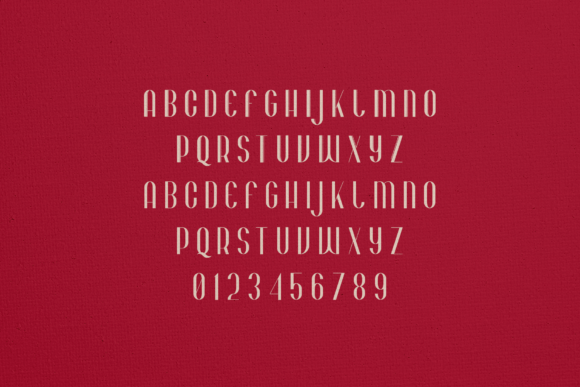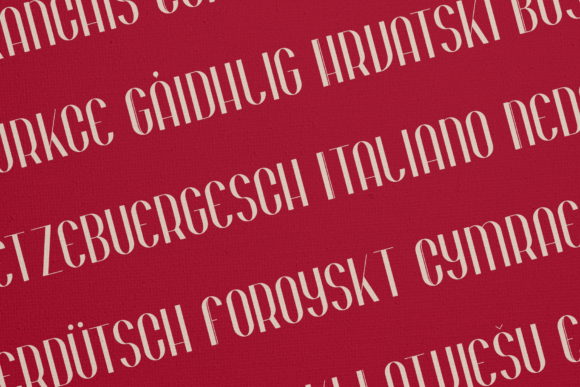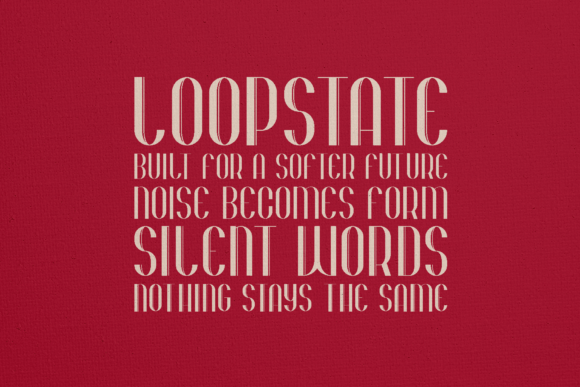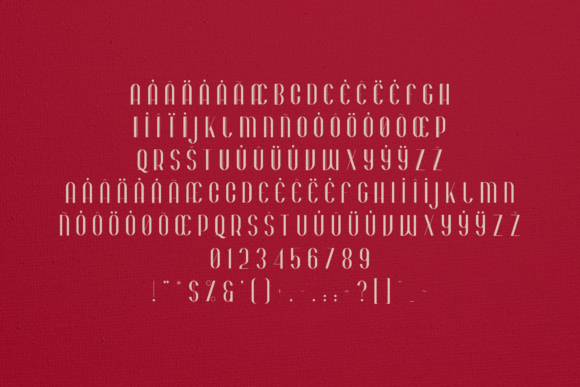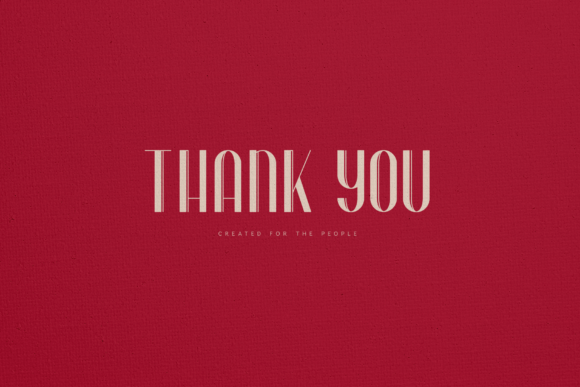
Unlocking the Secrets of Bohemian Luxury with the Bohem Font
As a designer, there’s nothing quite like the thrill of discovering a new typeface that speaks to your creative vision. For me, that moment came when I stumbled upon the Bohem Font – a stunning Art Deco-inspired display font that exudes timeless sophistication and modern refinement. With its tall proportions, smooth curves, and delicate contrast, Bohem is the perfect tool for designers seeking to convey a sense of “Bohemian luxury” in their work.
Whether you’re crafting a wine label, designing a boutique hotel’s brand identity, or creating a fashion magazine header, the Bohem Font is an invaluable asset. Its unique verticality makes it perfectly suited for narrow layouts, while its clean and contemporary aesthetic ensures it never overwhelms the composition. By pairing Bohem with a minimalist sans serif or delicate monoline script, designers can create cohesive brand identities that exude classic elegance and refinement.
Key Features of Bohem Font
- Unique Characteristics: Bohem Font features a unique blend of elegance and playfulness, with intricate details and subtle nuances that set it apart from other fonts.
- Style Options: Bohem Font comes in a range of styles, including regular, bold, italic, and bold italic, allowing designers to experiment with different looks and feels.
Bohem Font Review
Overall, I’d say the Bohem font is a beautiful and unique addition to any design project. ✨ It’s got a free-spirited vibe that’s perfect for artistic or creative endeavors. The font is highly legible, making it suitable for body text and titles alike.
- Unique and elegant letterforms ✨
- Highly legible and versatile
- Perfect for artistic or creative projects
- Comes in various font weights and styles
- May not be the best choice for formal or corporate projects ⚠️
- Can be a bit overused in design, losing its impact
- Lack of bold or italic font variations in some styles
Overall, I’d recommend the Bohem font for designers looking to add a touch of whimsy and creativity to their projects. While it may not be the best choice for every project, it’s a great addition to any design library.
Tips for Getting the Most Out of Bohem Font
Use Bohem Font for creative and artistic projects, such as invitations, posters, and social media graphics. Experiment with different font combinations and sizes to create a unique visual effect. You can also use Bohem Font for headings and titles to add a touch of elegance and sophistication.
Bohem Font is ideal for:
– Creative and artistic projects
– Invitations, posters, and social media graphics
– Headings and titles
– Fashion and lifestyle brands